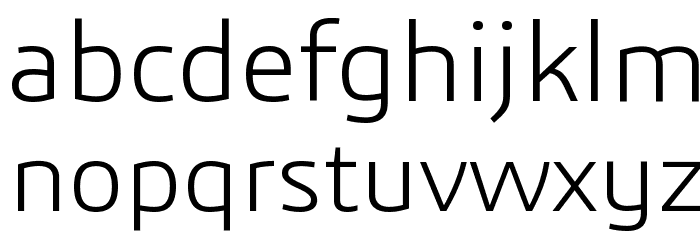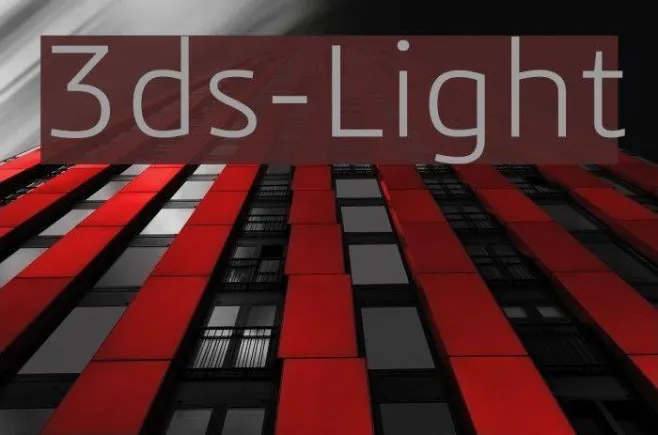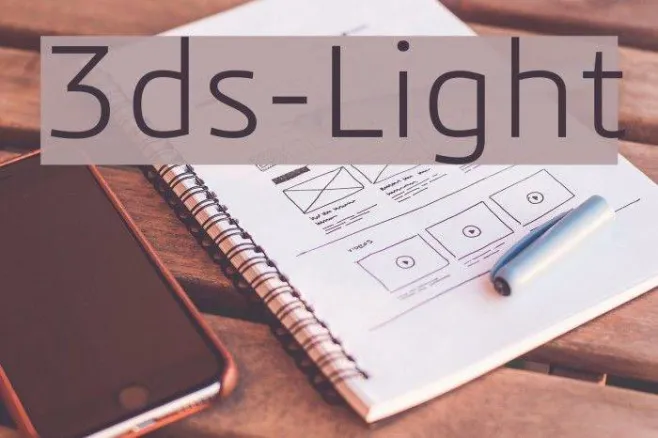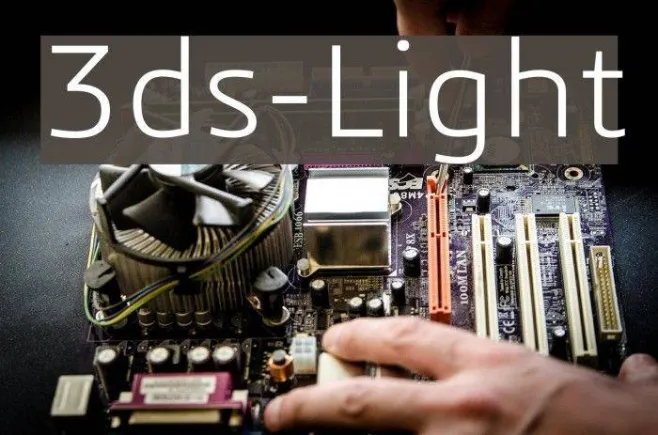
3ds-Light Font
This font features a clean and modern sans-serif design with a light weight, making it ideal for minimalist and contemporary projects. The characters are well-proportioned with a consistent stroke width, providing a harmonious and balanced appearance. The uppercase and lowercase letters are distinct yet complementary, ensuring readability across various sizes. The numerals are clear and straightforward, while the special characters maintain the font's sleek aesthetic. Overall, this font exudes a sense of simplicity and elegance, suitable for a wide range of applications.
A modern, light sans-serif font with clean lines and balanced proportions.
- Proposed Projects: Ideal for branding, web design, corporate materials, and editorial layouts.